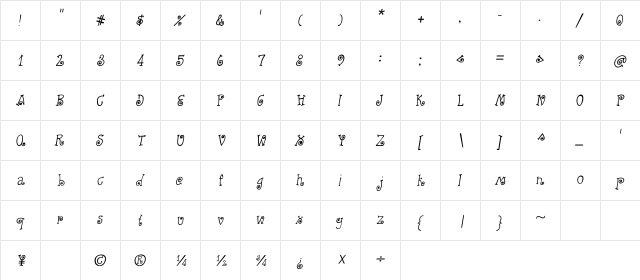
CRU-Kanda-Hand-Written-Italic Italic
| Designer | Kanda sudsakorn |
Design Context for CRU-Kanda-Hand-Written-Italic Typeface
CRU-Kanda-Hand-Written-Italic flows with the natural rhythm of handwritten lettering, making it ideal for designs that call for warmth and personal expression.
Font Pairing: Combine CRU-Kanda-Hand-Written-Italic with a simple geometric sans for maximum contrast — the tension between flowing curves and clean structure is a classic typographic pairing.
Pro Tip: Use CRU-Kanda-Hand-Written-Italic for short runs of text — names, titles, or taglines. Extended body copy in script faces tires the eye quickly.